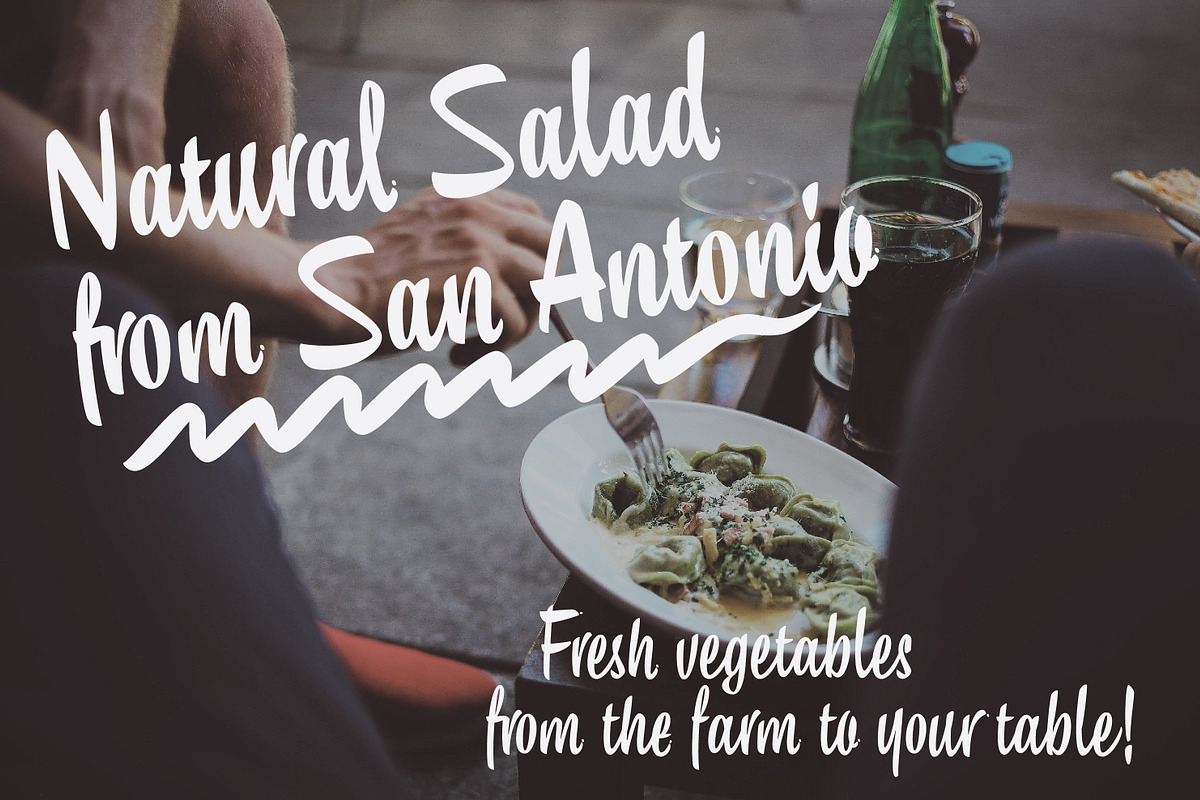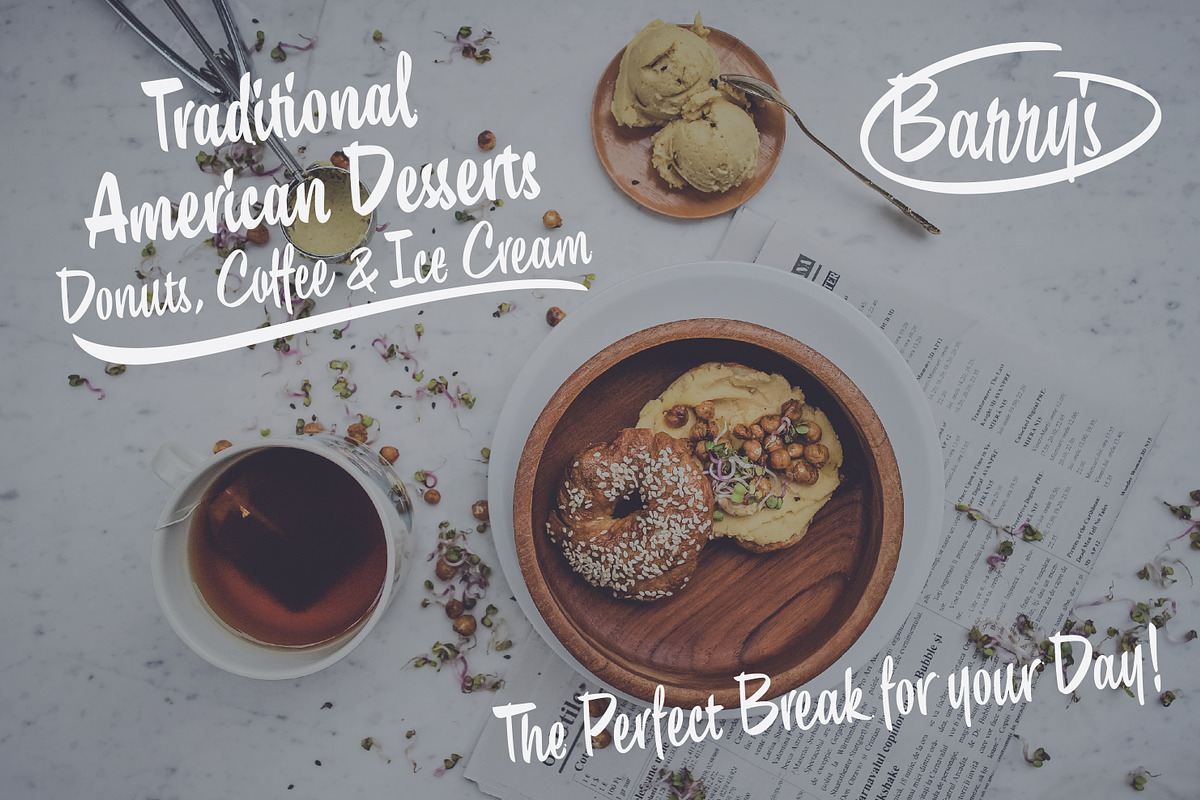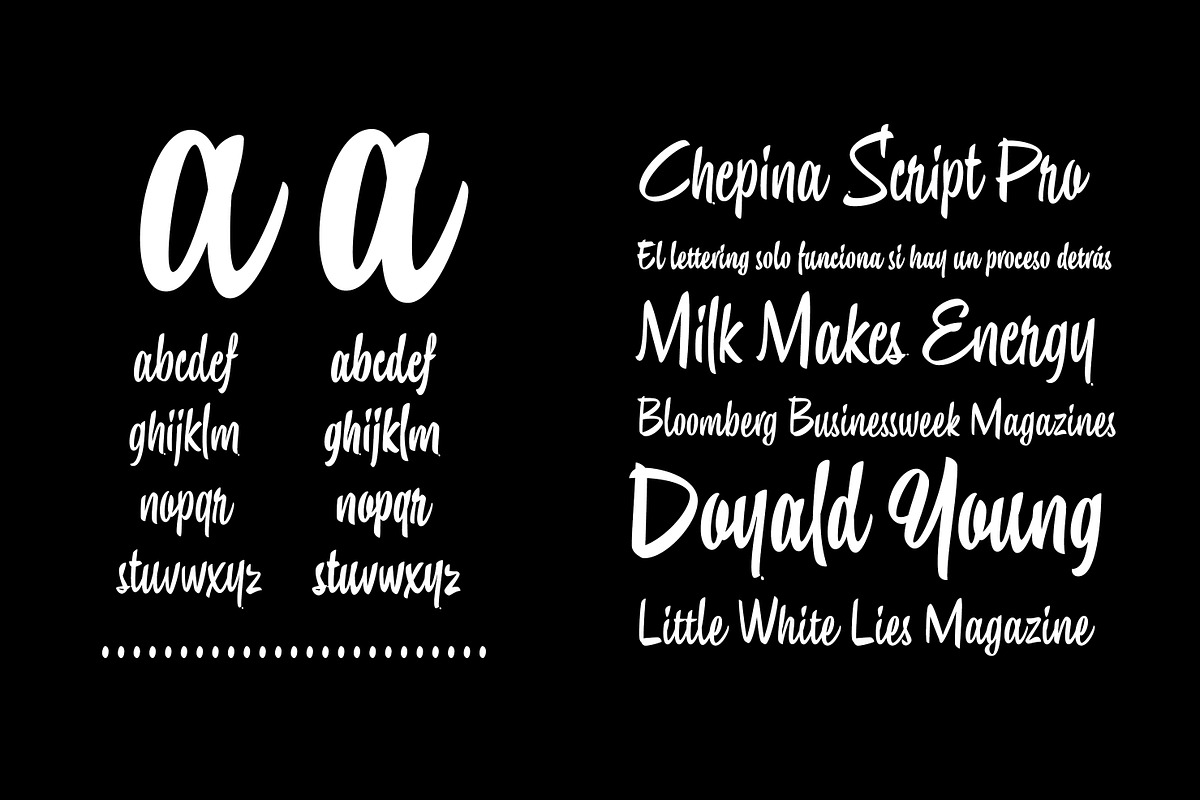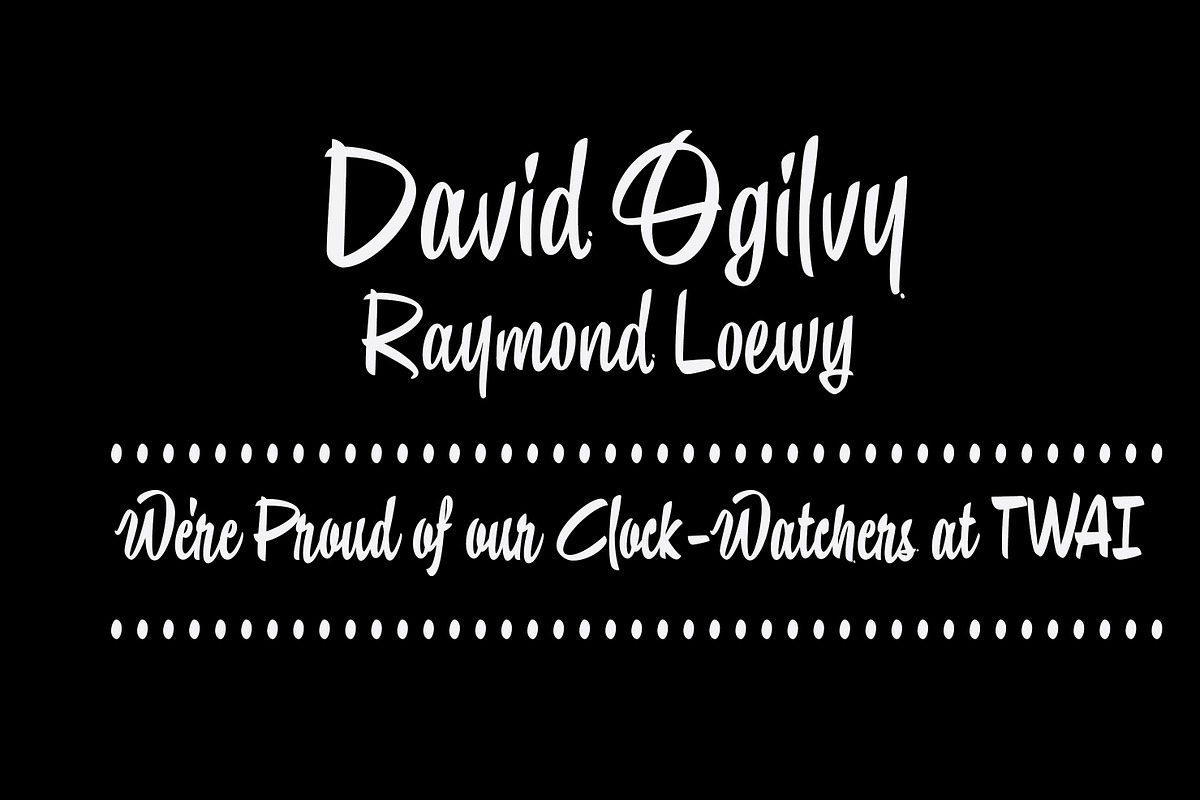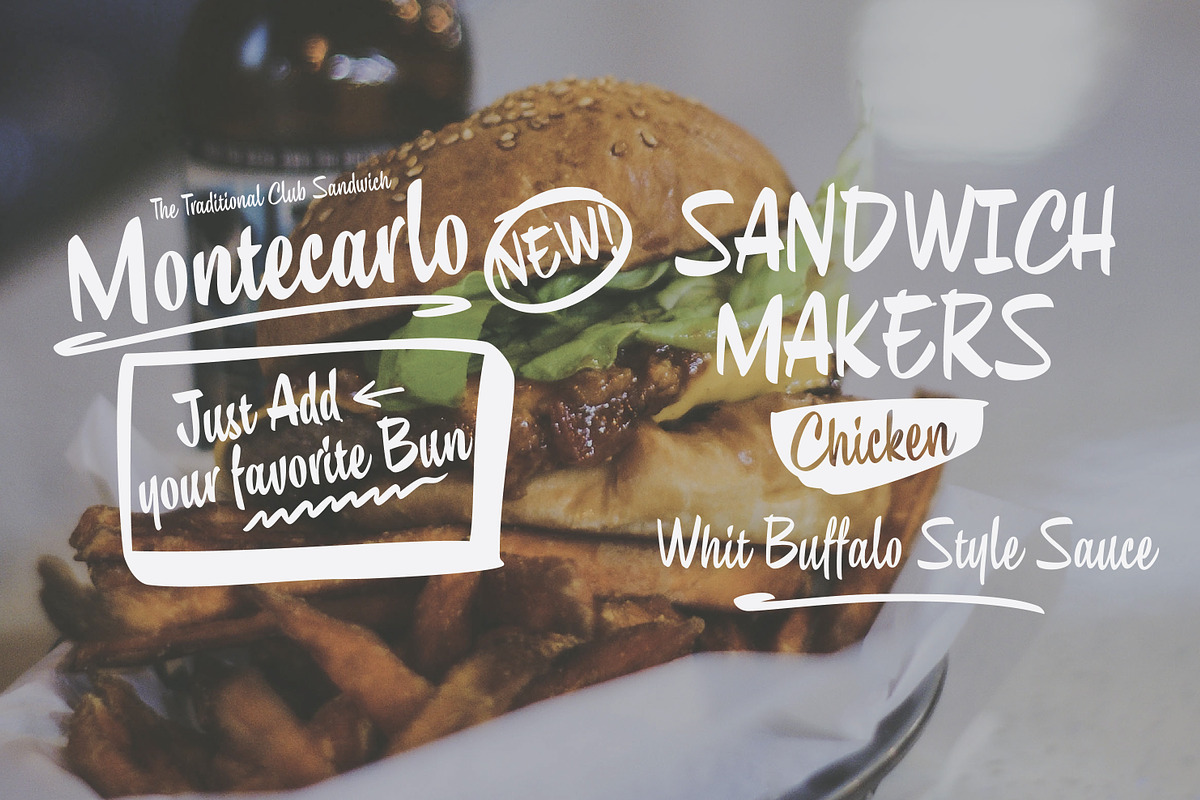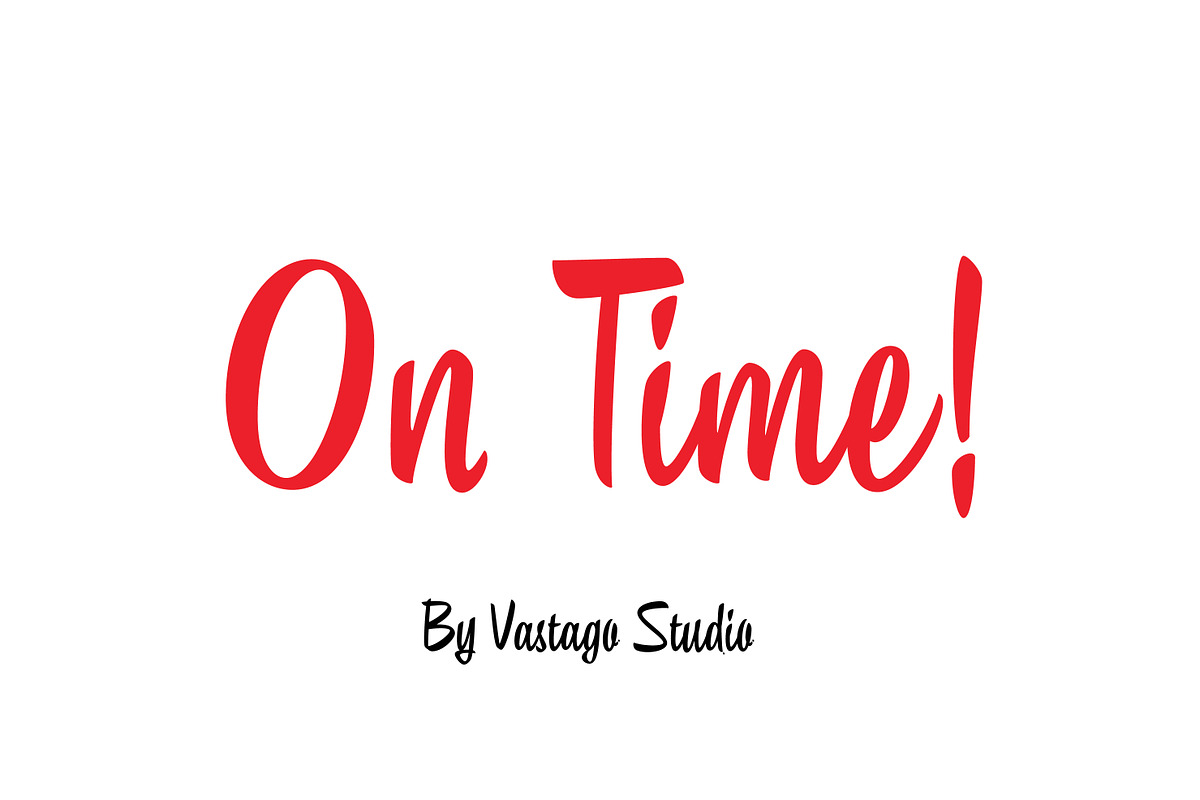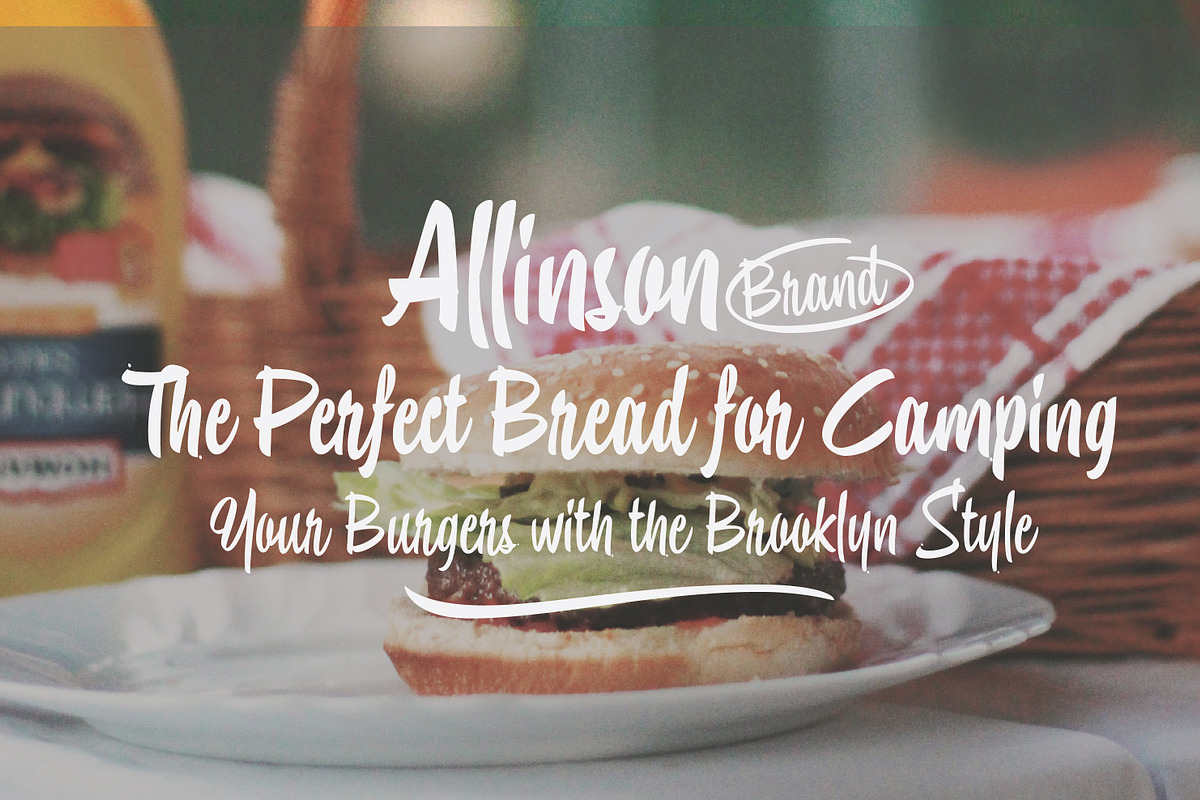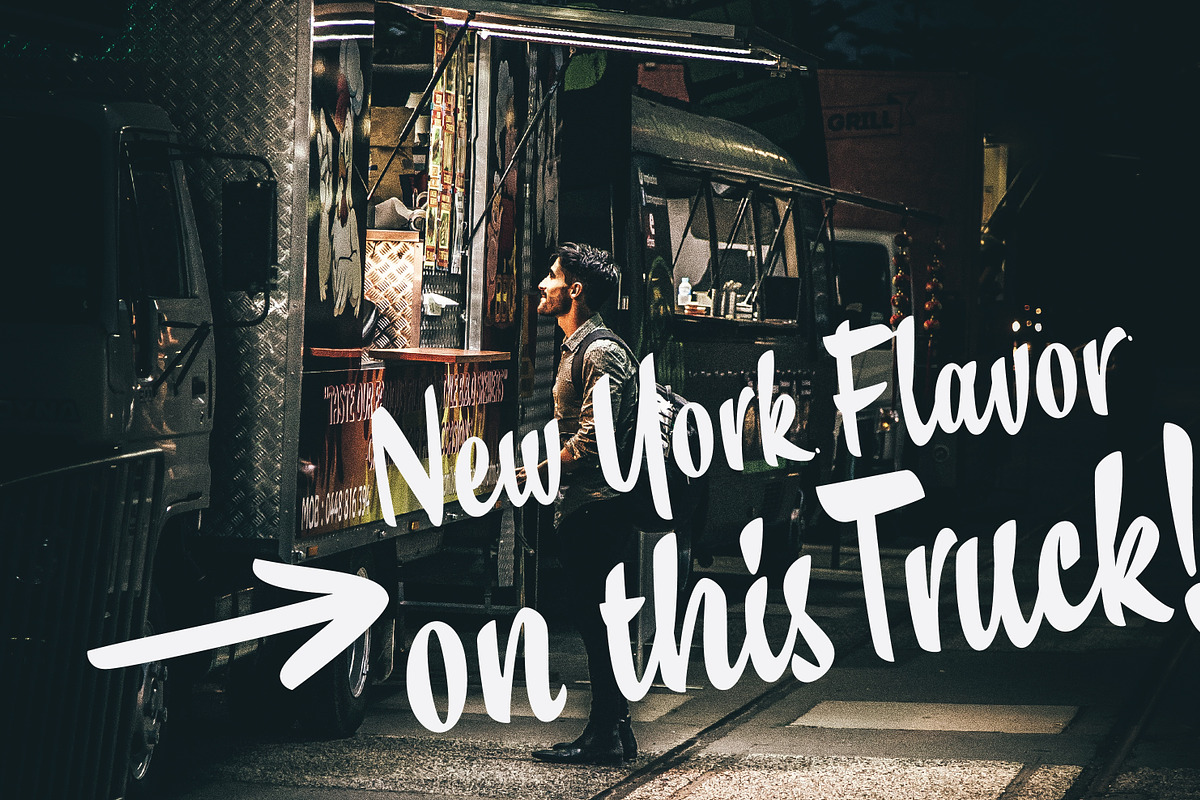
Chepina Script Font
Is moment for to give the retrospective touch to your designs - from brush lettering to digital typeface, Chepina Script was inspired in the vintage posters of golden age of ads.
• Smooth strokes with high quality digital draw, is recommendable to use from 20pt.
• personal style: a lot of characters was created using fast handwriting, giving a spontaneous result.
• Two Styles: This font contain two styles Regular and Bold
• Opentype features: Near of 450 glyphs you get with this product. You can use stylistics and contextual alternates.
- • Ornamental Elements: in this character set is included a great pack of lines, swashes, and dingbat for to decorate your compositions.